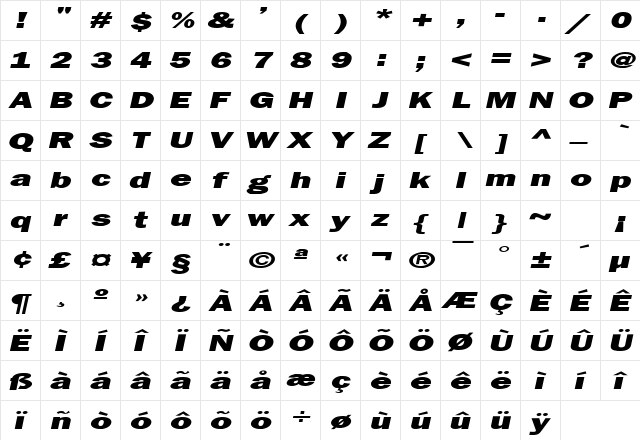
Francis Gothic Extended Italic
Design Context for Francis Gothic Extended Typeface
Francis Gothic Extended takes a clean, functional approach — its unadorned letterforms prioritise legibility and work reliably across screen and print environments. The dynamic lean of this cut emphasises speed and emphasis in any layout.
Font Pairing: Works well alongside a characterful serif or display font that can carry the expressive load while Francis Gothic Extended handles the functional copy.
Pro Tip: Use Francis Gothic Extended for UI labels, navigation, and short-form body copy where clean legibility is the priority.